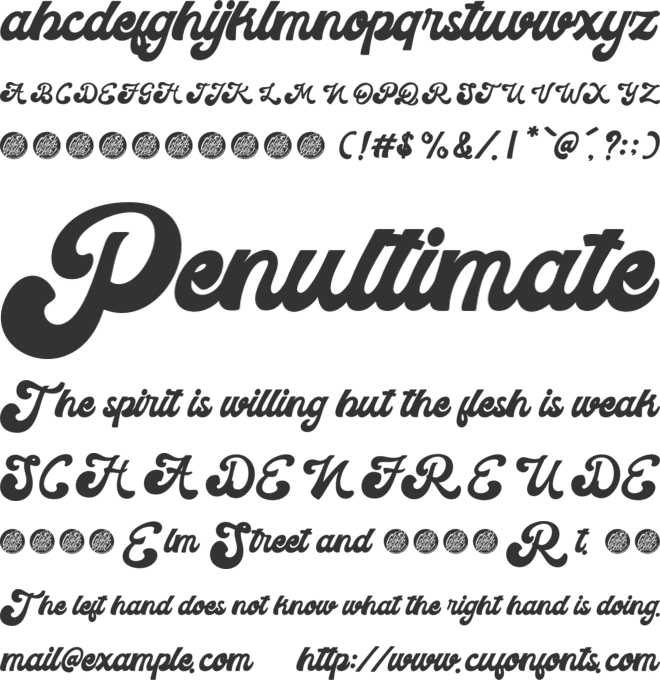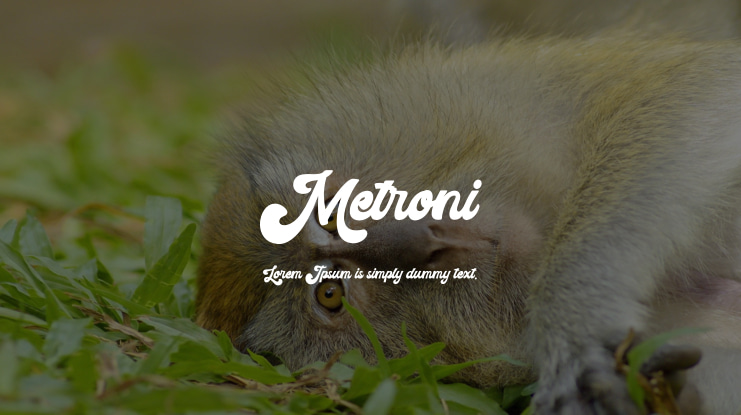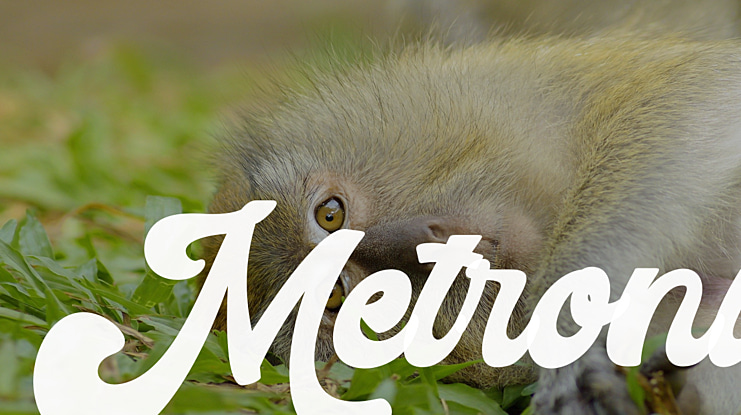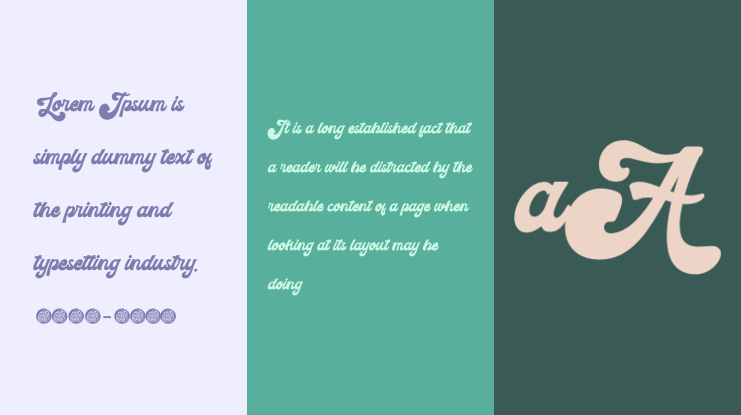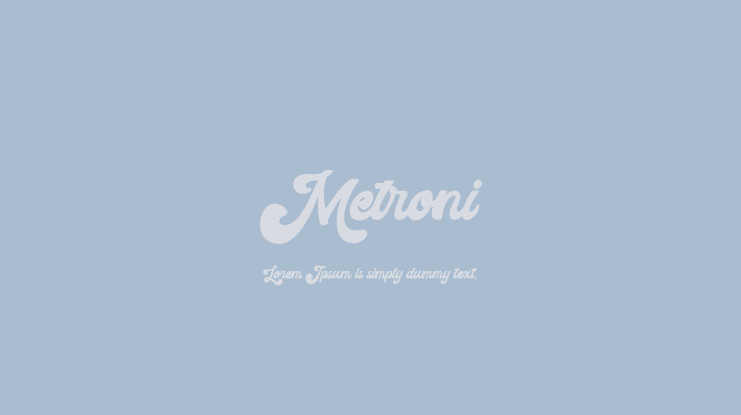
Metroni Font
Metroni is a bold, retro and vintage themed script font. bold font with many choices of stylistic or character variations that you can choose from such as swash, ligature, salt etc.